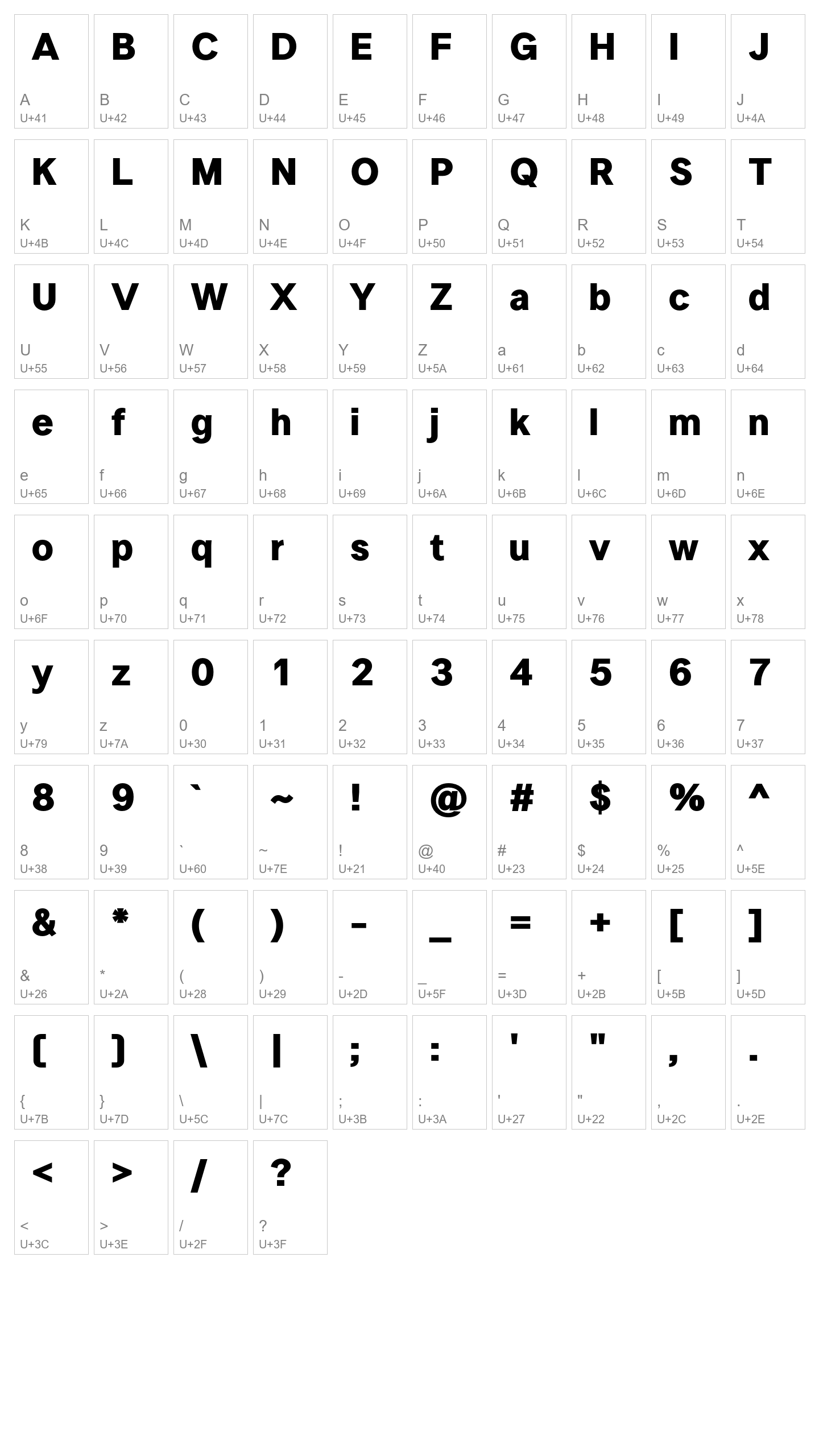
LT Superior
A sans-serif typeface with support of over 500 languages, and licensed under the SIL Open Font License.
Additional weights of the font family included to extend its usage.
Font family refined.